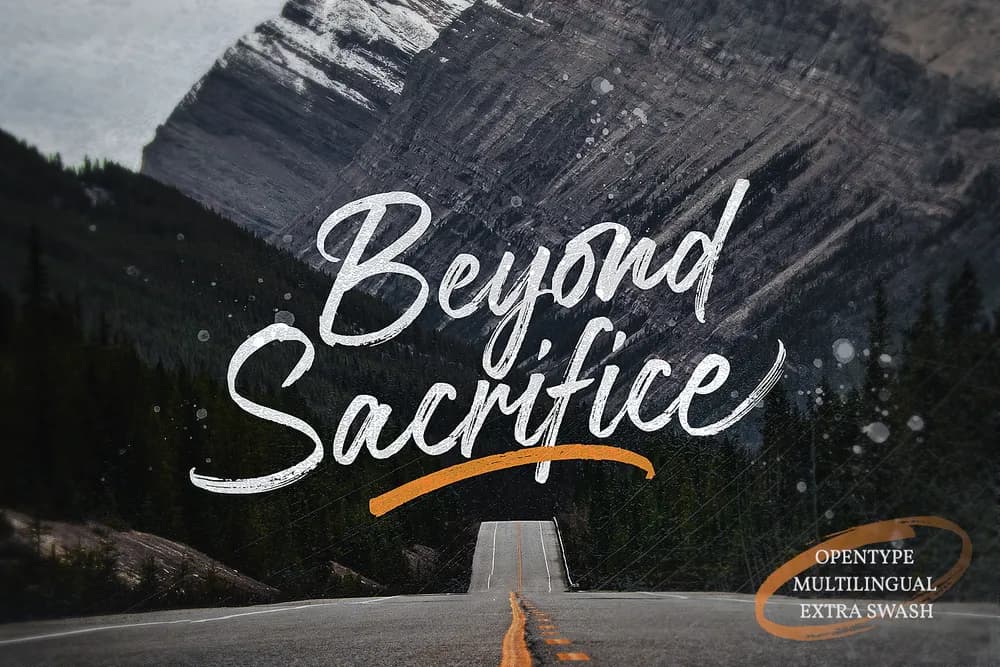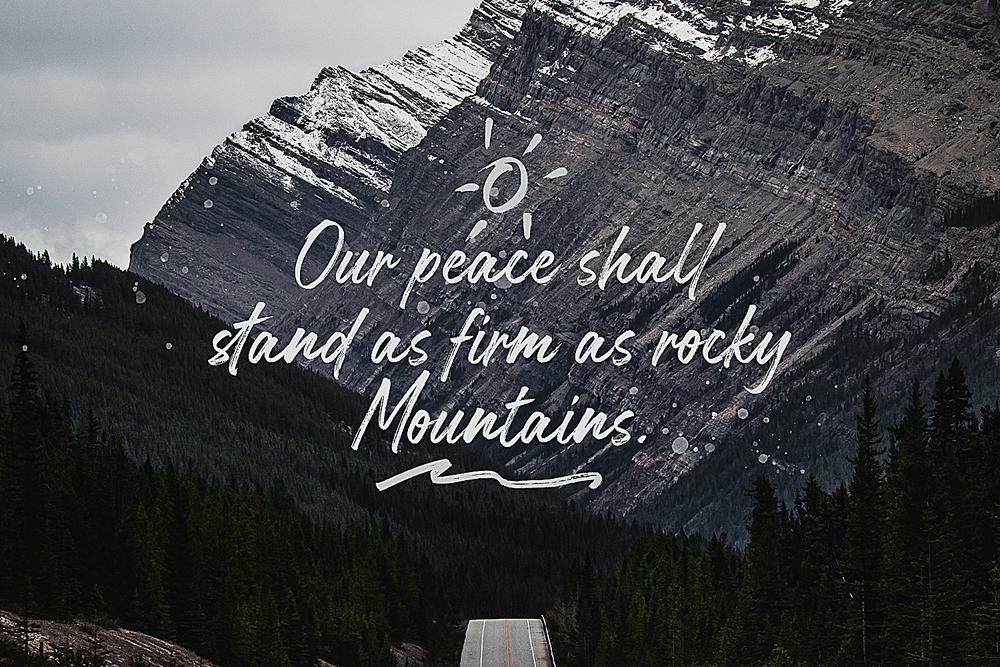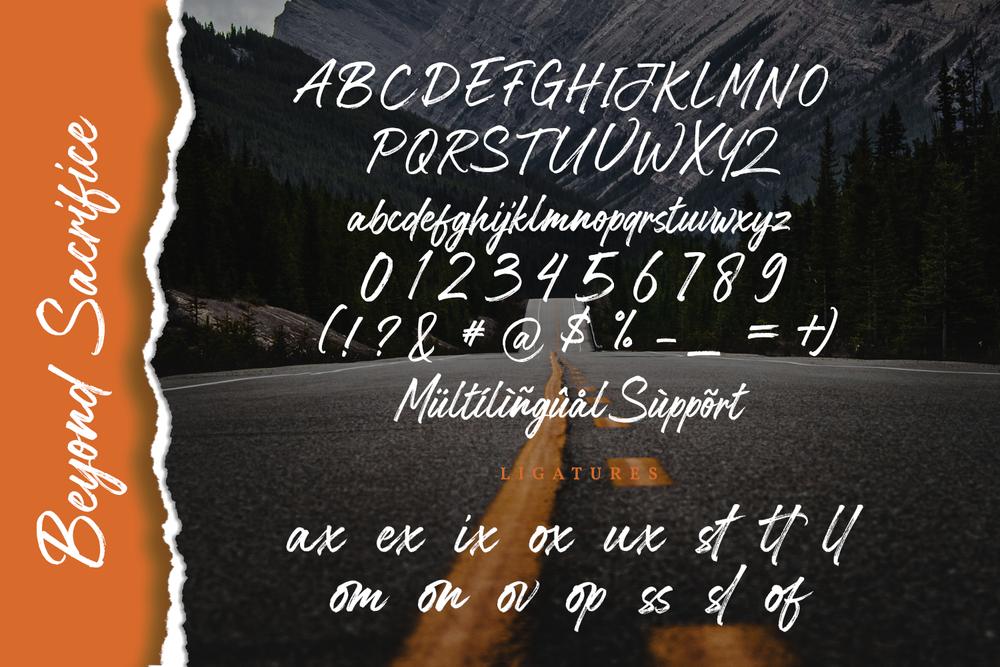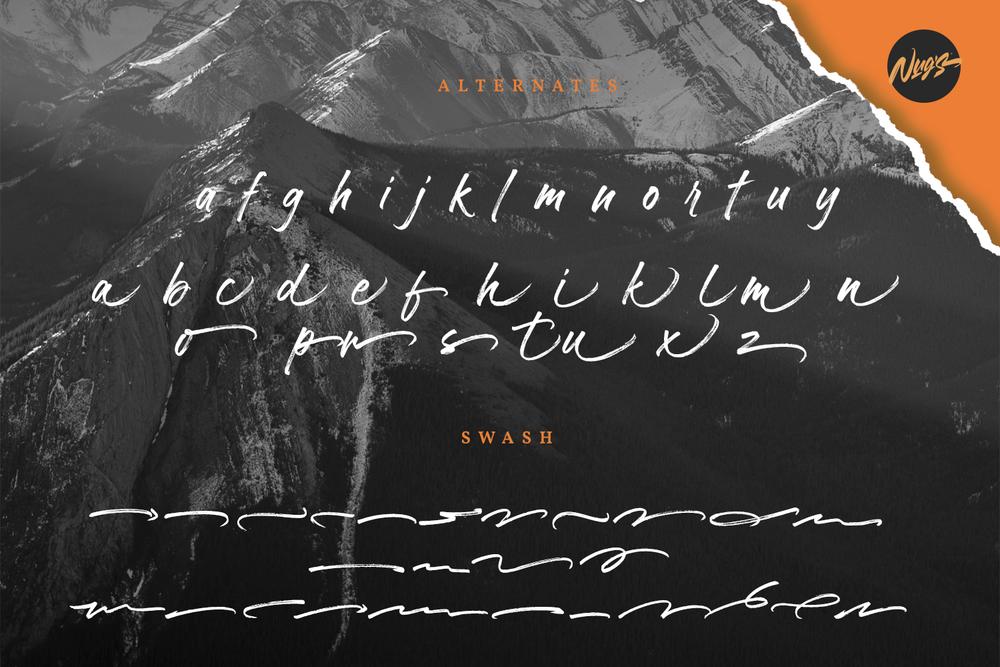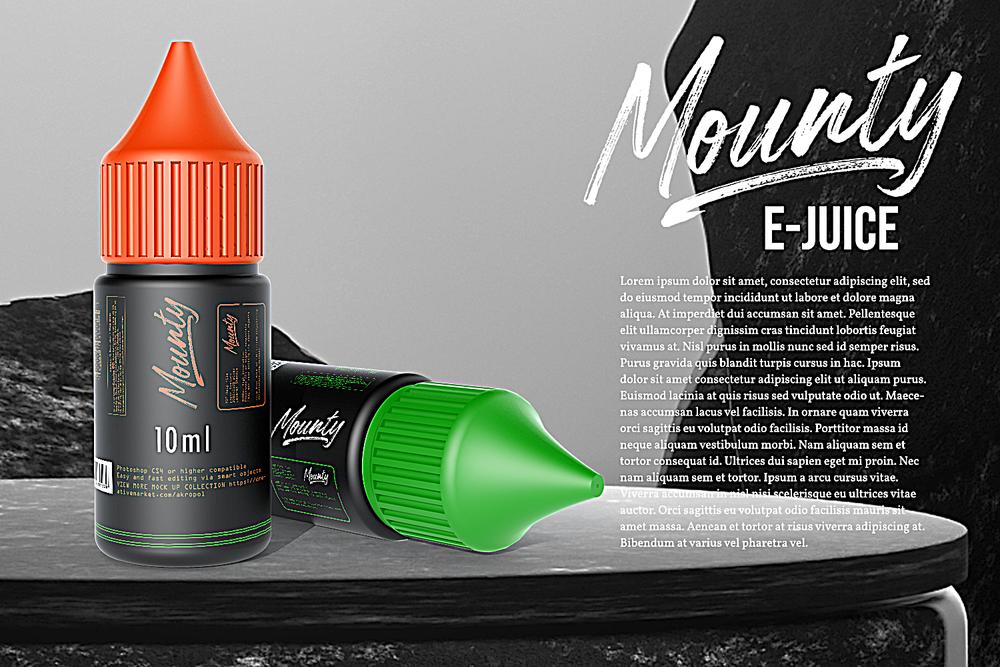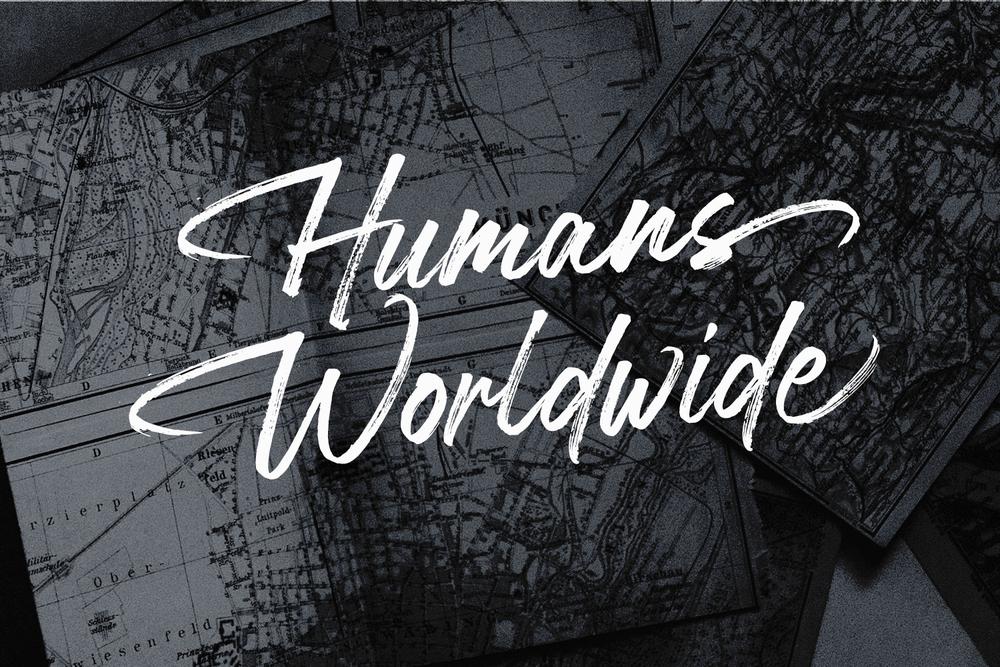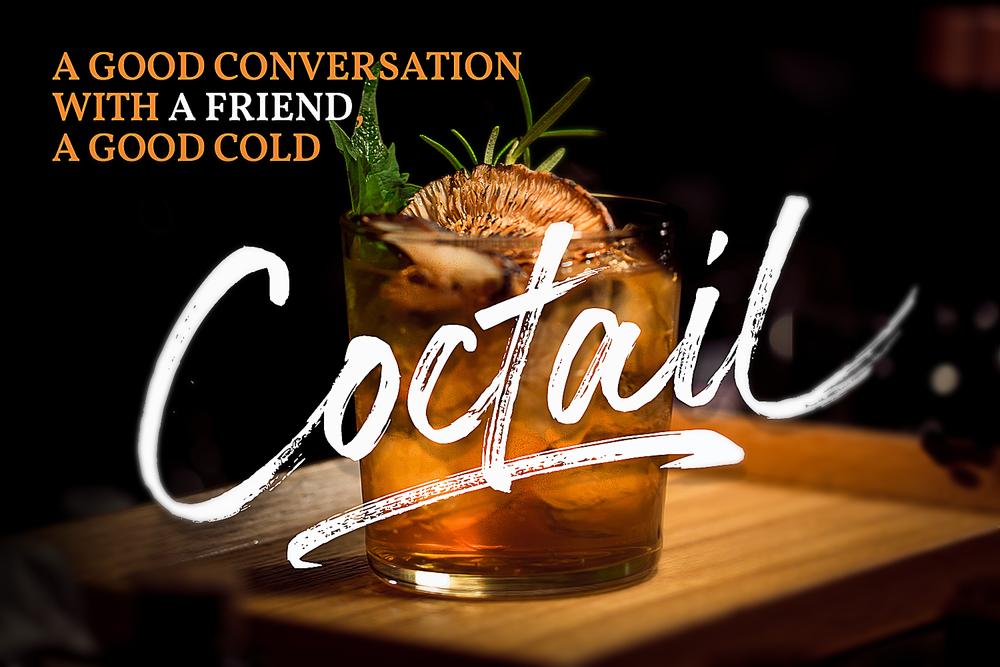
Beyond Sacrifice is a natural and modern calligraphy font. It is perfect for any branding project such as logos, t-shirt printing, creative products, and more. It will look extraordinary in a variety of contexts. What's Included : (OTF/TTF/WOFF) SWASH Web Fonts Standard & Multilingual glyphs Ligatures Works on PC & Mac Simple installations